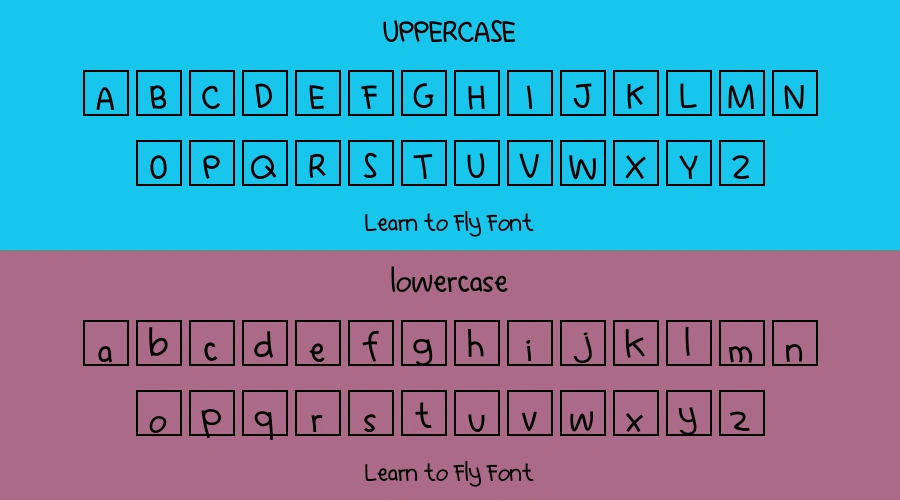
About Learn to Fly Font
Learn to Fly Font stands out for its distinctive combination of monoline strokes and personality. Ideal for medical writing, it provides the durability and functional utility that professional projects demand. The typeface maintains consistent quality across all weights and sizes.
Key features include refined distinctive details and practical historical accuracy, enhancing typographic expression. In warning labels applications, Learn to Fly Font demonstrates exceptional kerning accuracy. The stroke modulation and technical innovation contribute to its distinctive character and professional appeal.